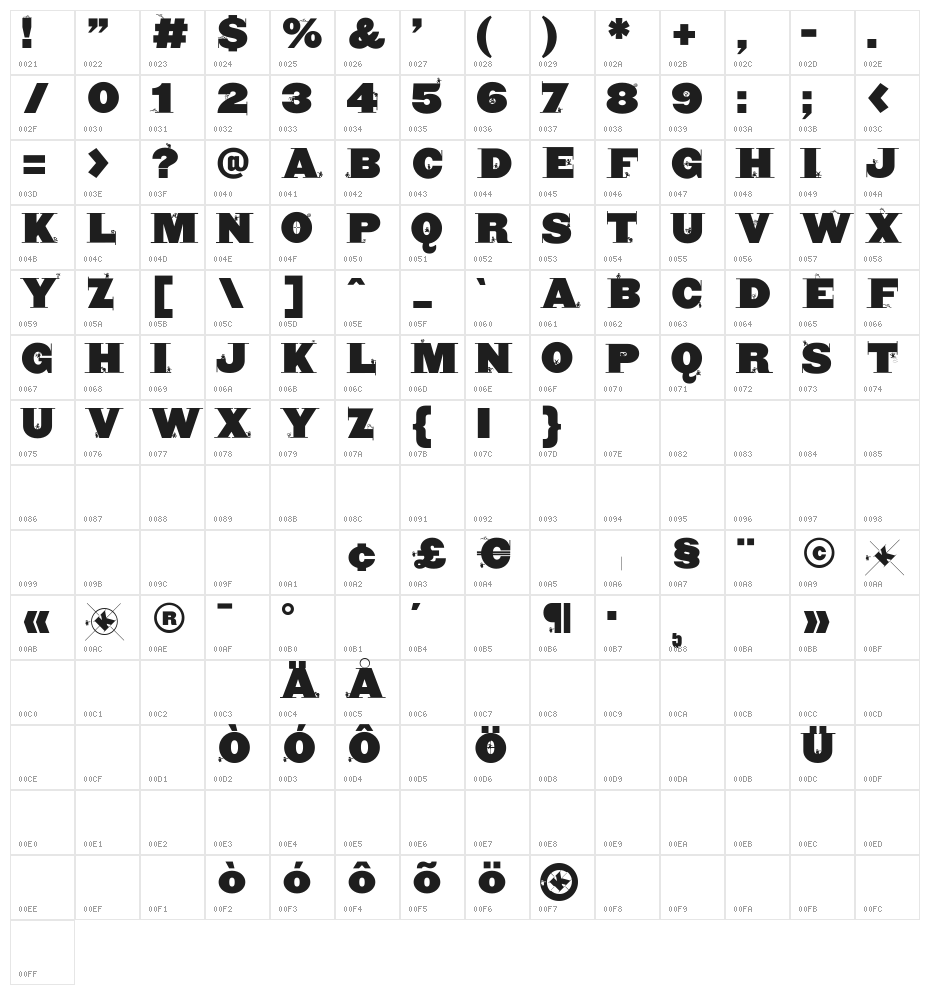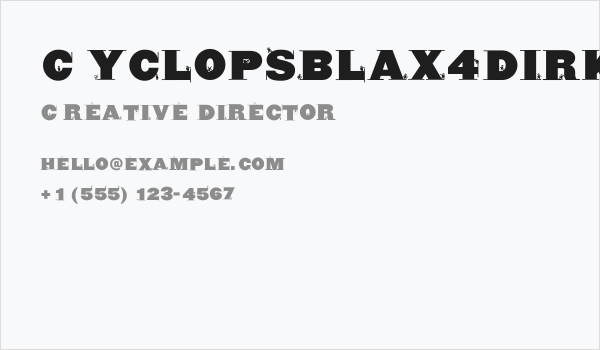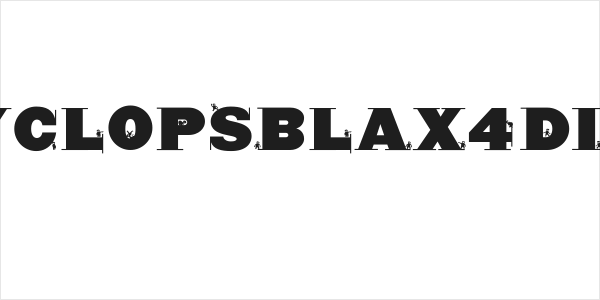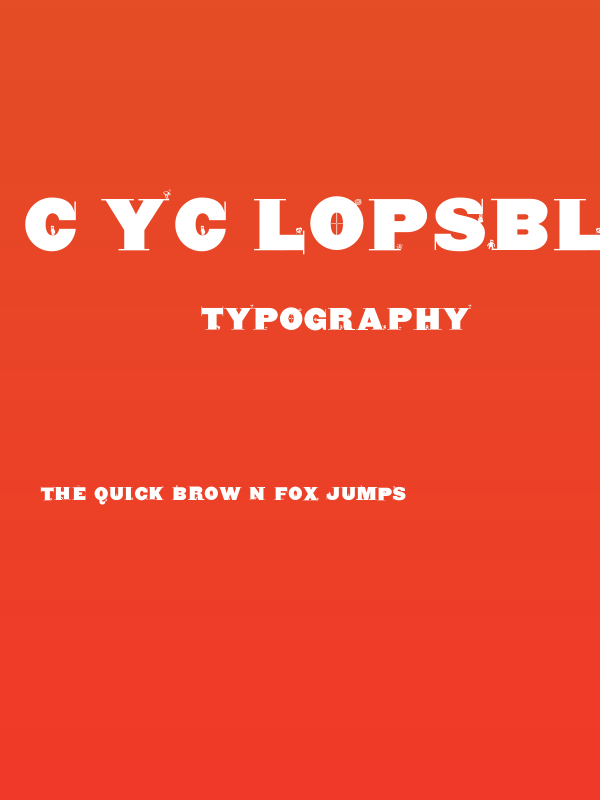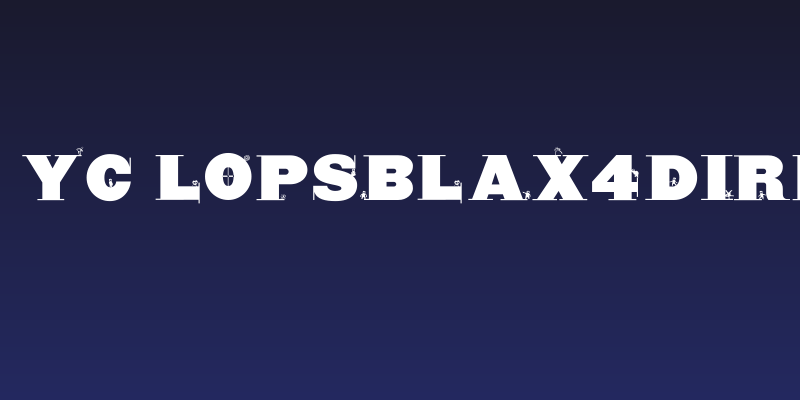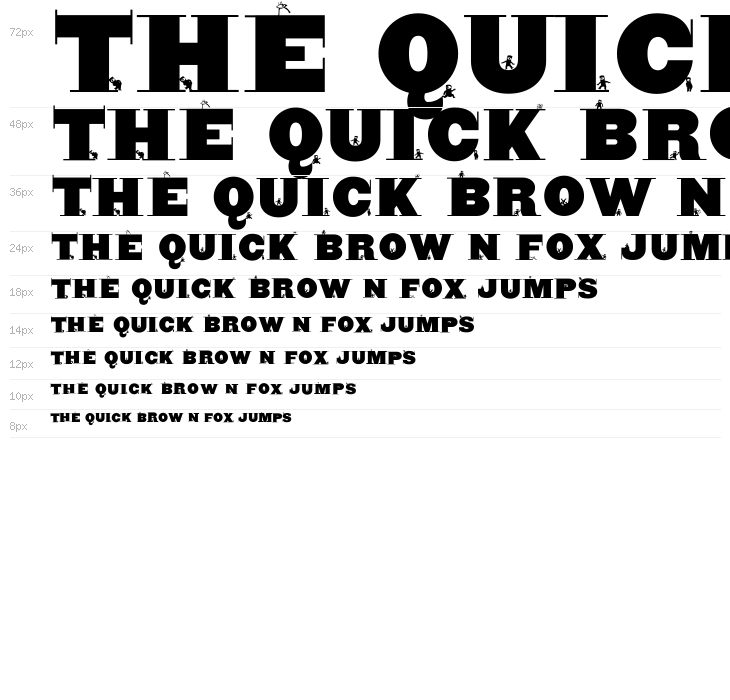
CyclopsBlax4Dirk Font
CyclopsBlax4Dirk Description
This font is a bold, decorative typeface with a unique and playful design. Each character is adorned with small, whimsical figures that add a touch of humor and creativity. The uppercase and lowercase letters maintain a consistent weight, contributing to a cohesive look. The numbers and special characters follow the same style, ensuring uniformity across all text elements. The font's boldness makes it stand out, while the added illustrations provide a distinctive charm that is both eye-catching and memorable.
| Proposed Projects | Ideal for children's books, playful branding, posters, and creative projects that require a fun and engaging typeface. |